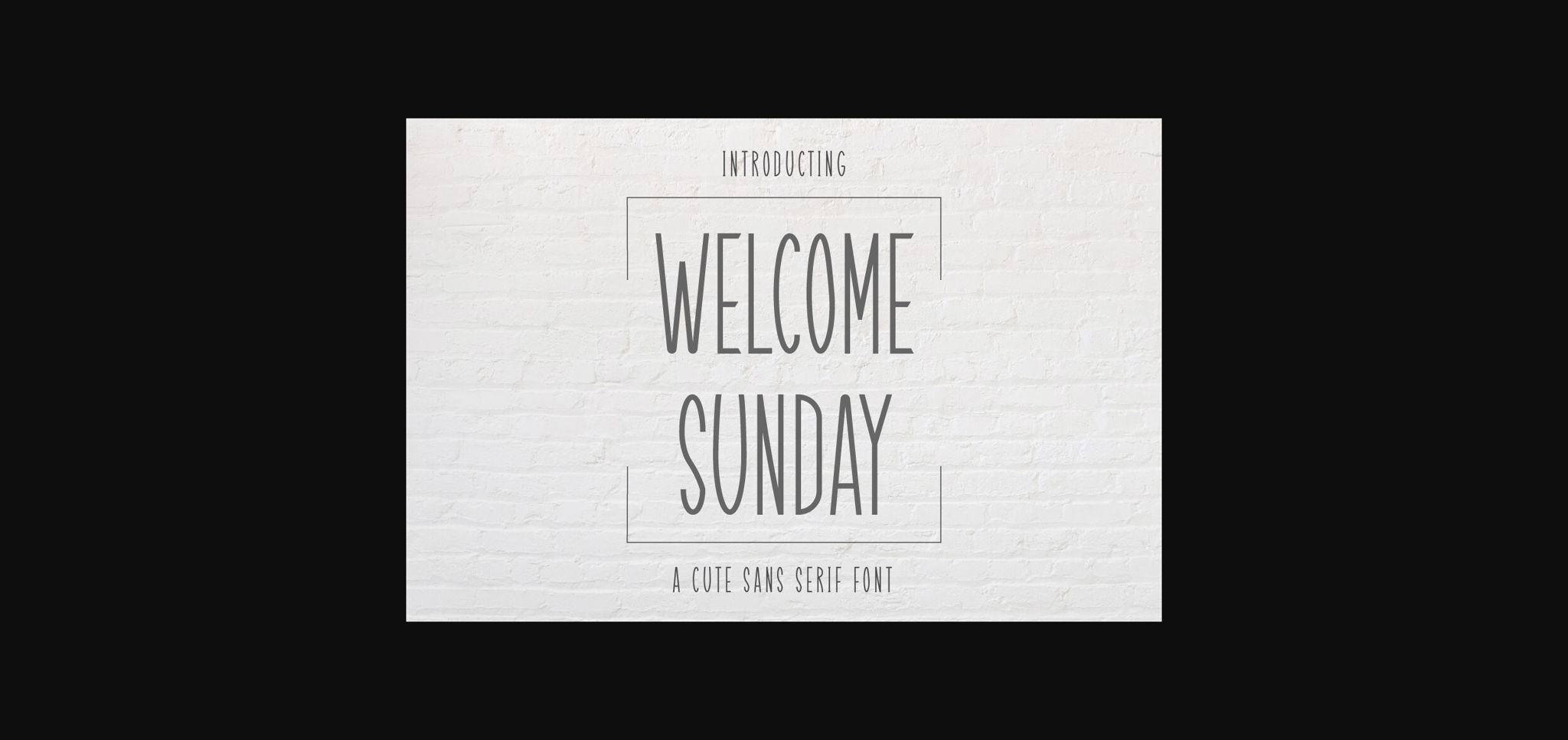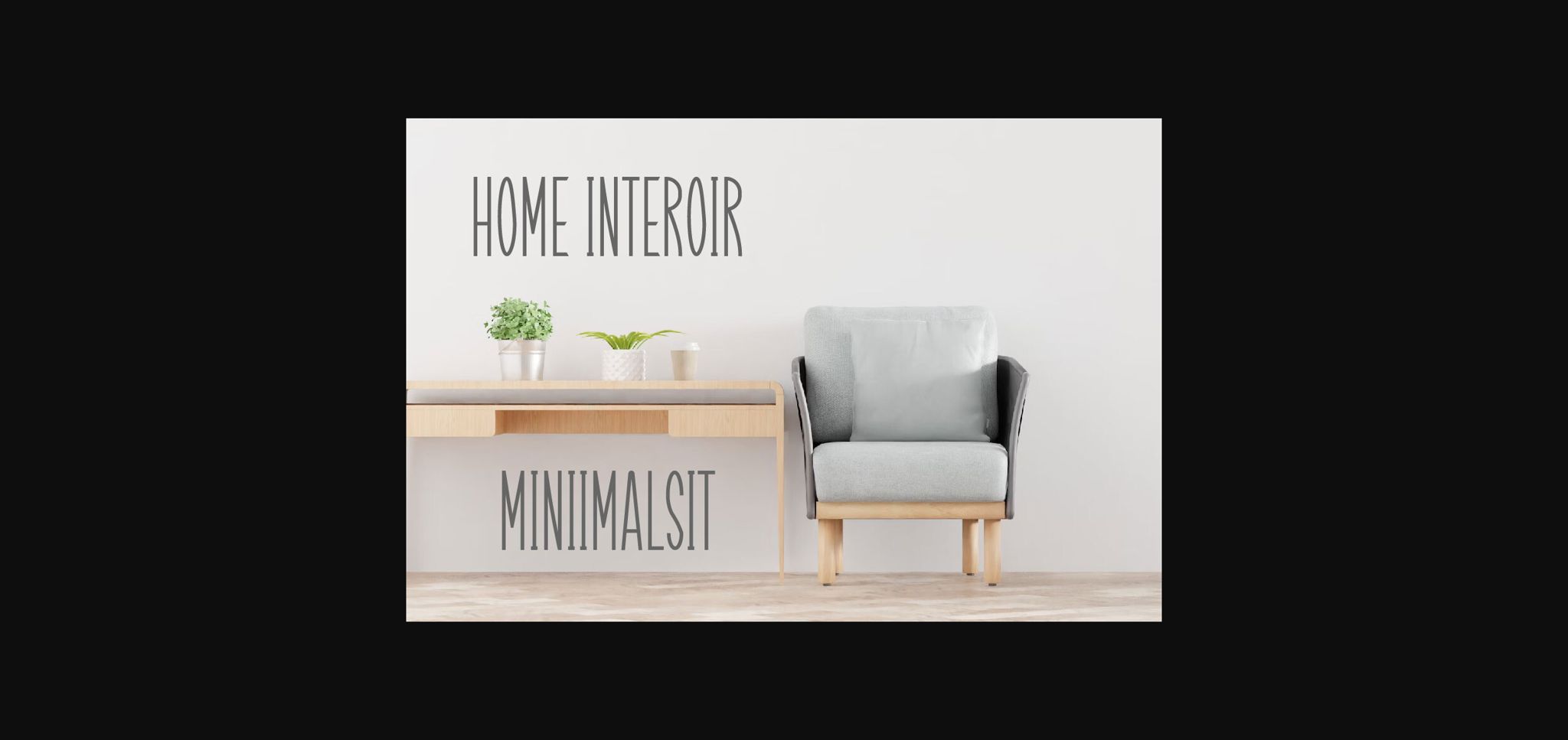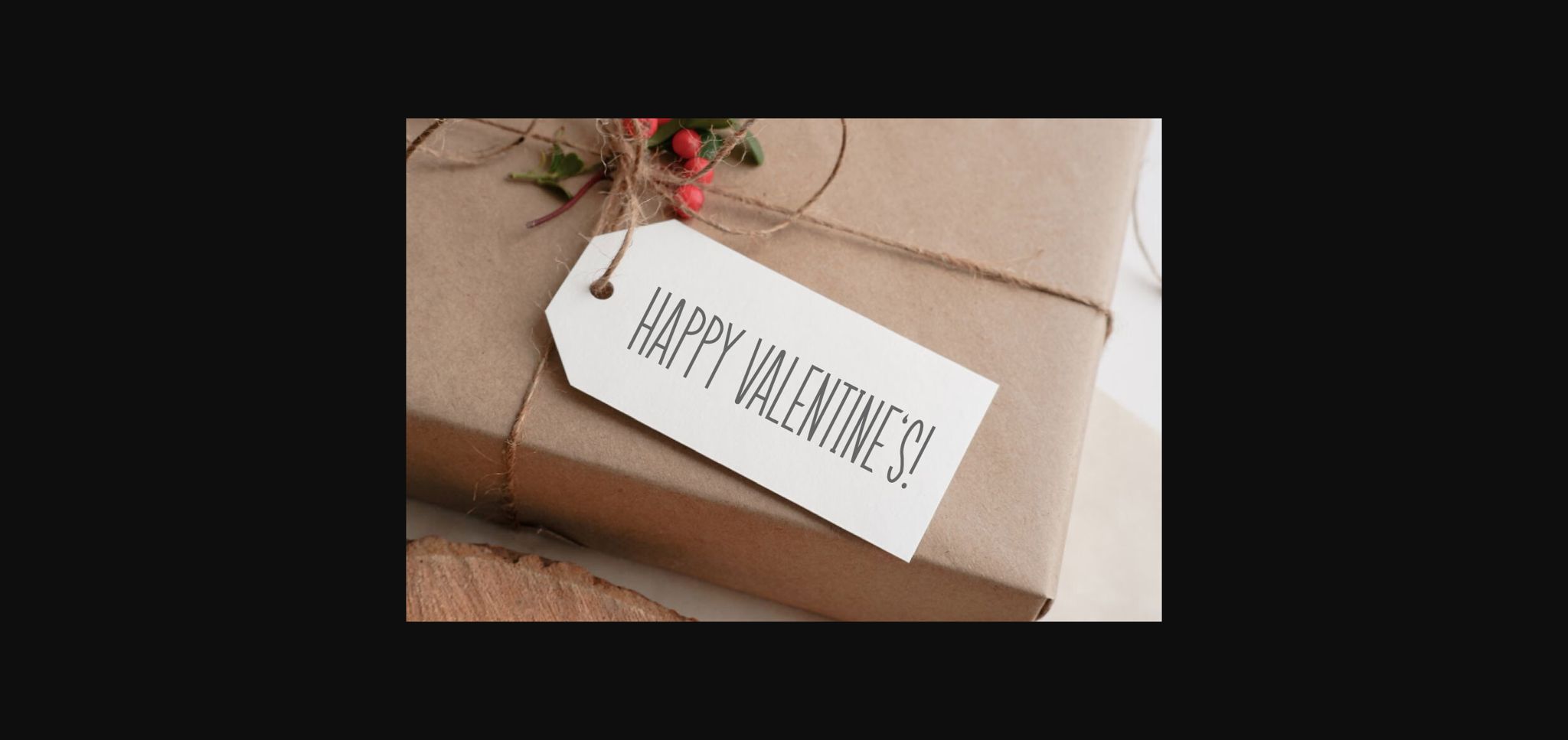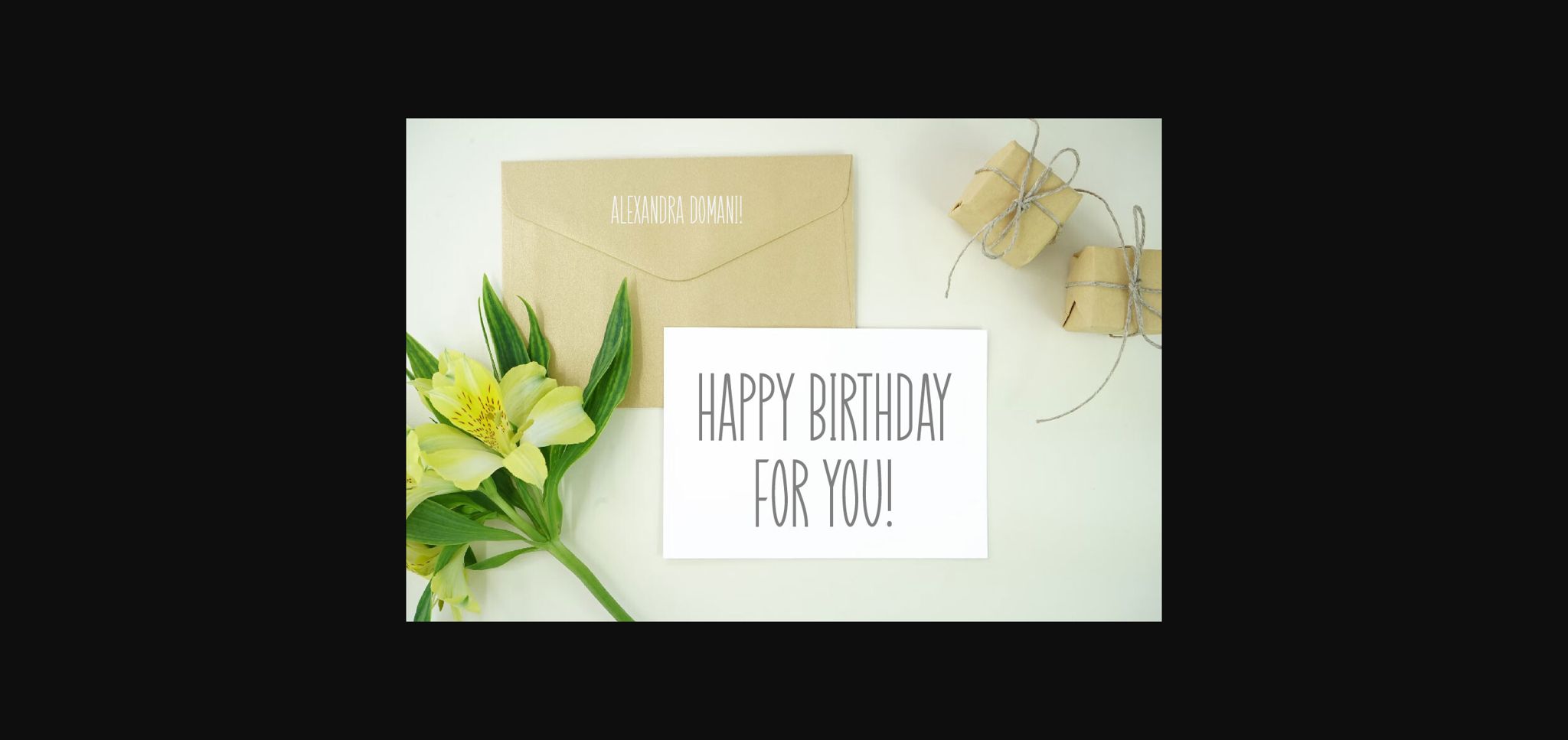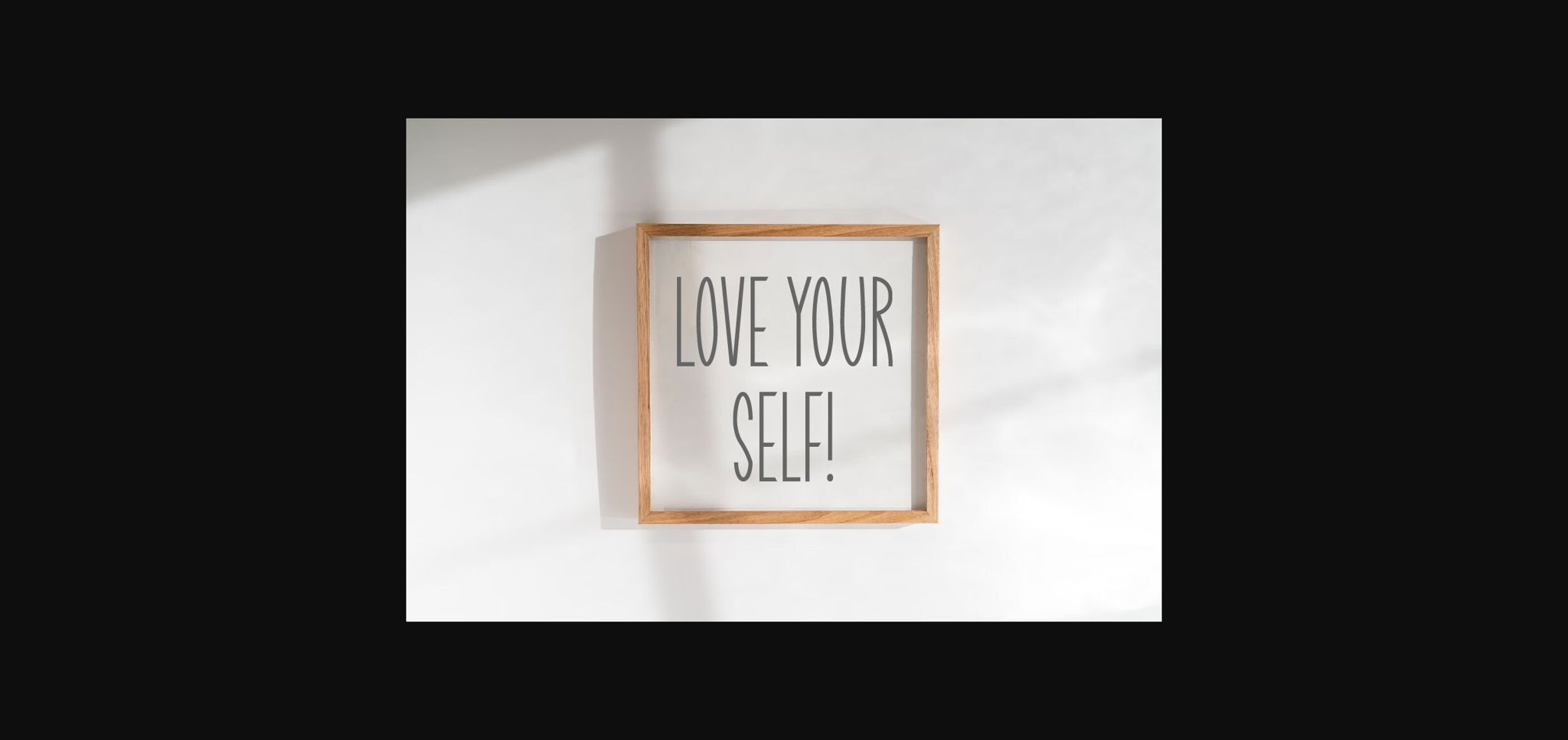
About Welcome Sunday Font
Welcome Sunday is a cute sans serif font, this font is perfect for greeting cards, home decor, decorative, wedding, gift labels, mugs, t-shirts, quotes, label, etc. Use it to create spectacular and interesting designs!